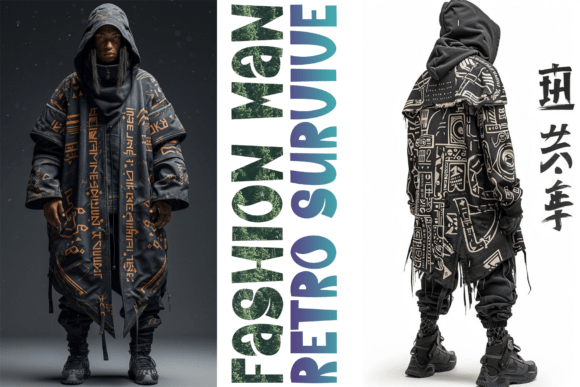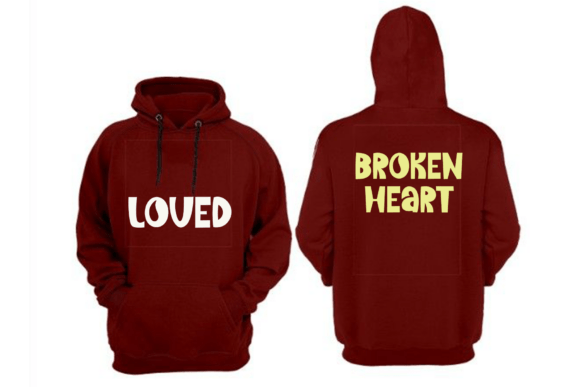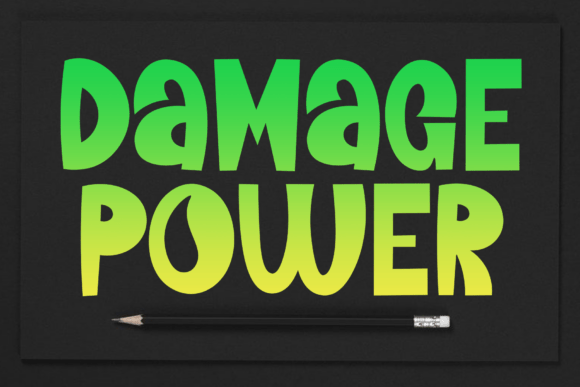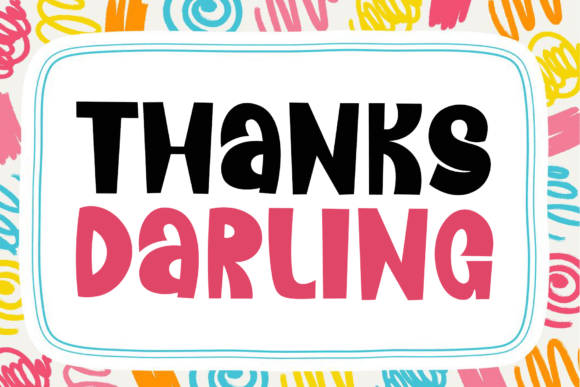
Introduction to Noodles Font
Have you ever found yourself staring at a blank page, trying to come up with the perfect headline for your latest creative project? The cursor blinks, and your mind goes blank. But then, you stumble upon the perfect font – one that captures the essence of your message and draws the reader in. For designers, finding that perfect font can be a game-changer, and that’s exactly what the Noodles Font is designed to do.
As a high-quality design resource, the Noodles Font is a must-have for any creative project. With its clean structure and approachable style, it’s perfect for branding, headlines, and everyday designs. Whether you’re working on a project with a transparent background or a busy design with multiple elements, the Noodles Font is sure to bring warmth and clarity to your message.
Key Features of Noodles Font
- High-quality design resource for creative projects, suitable for various applications.
- Includes a range of characters and glyphs for effective communication in various creative projects.
- Perfect for designers who want a unique and creative font for their next project.
Honest Review: Noodles Font
As a designer, I’m always on the lookout for high-quality design resources to elevate my creative projects. Recently, I had the chance to try out the Noodles Font, and I’m excited to share my honest review with you.
- ✨ Unique and playful design style that adds a fun twist to any project
- ⚠️ Limited character set, which may not be ideal for extended text-based projects
- ⚠️ Some users may find the font’s playful style a bit too whimsical for more formal projects
Overall, I’m impressed with the Noodles Font’s creative potential and versatility. While it may not be the perfect fit for every project, it’s a great addition to any designer’s toolkit. If you’re looking for a unique and fun font to spice up your designs, I’d definitely recommend giving it a try.
Noodles Font
Tips for Getting the Most Out of Noodles Font
To get the most out of Noodles Font, experiment with different font sizes, colors, and styles to create a unique look. You can also pair the font with other design elements, such as images and graphics, to create a visually appealing design.
Common Use Cases for Noodles Font
Noodles Font is perfect for a variety of creative projects, including posters, infographics, logos, icons, presentations, and reports. The font’s high-quality design and transparent background make it ideal for designing visually appealing and professional-looking designs.
Alternatives to Noodles Font
Oswald Font is a high-quality, sans-serif font ideal for creative projects requiring a clean and modern design. It’s available for free download and can be used with a transparent background. Oswald Font is similar to Noodles Font in its minimalist approach, but it’s more versatile and suitable for a wider range of design applications.
Open Sans Font is a popular, open-source font that’s perfect for designers looking for a high-quality, sans-serif font. It’s highly legible and suitable for body text, making it an excellent choice for creative projects requiring a clear and concise design. While Open Sans Font is more readable than Noodles Font, it lacks the unique flair of Noodles Font, making it a better choice for projects where readability is the top priority.